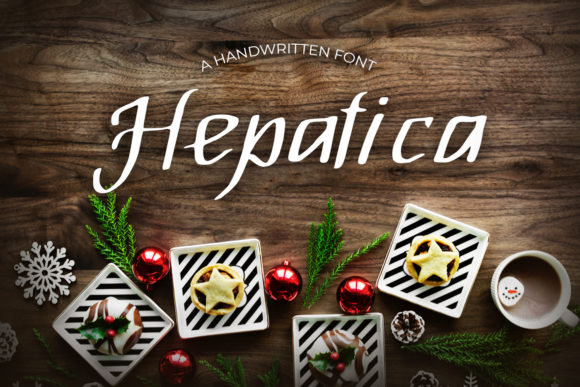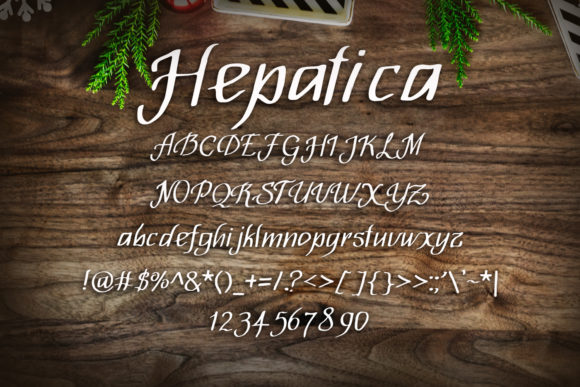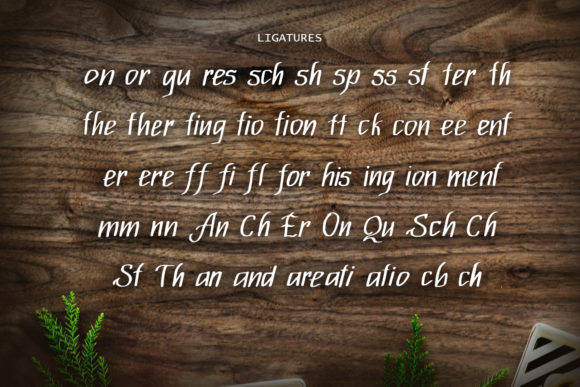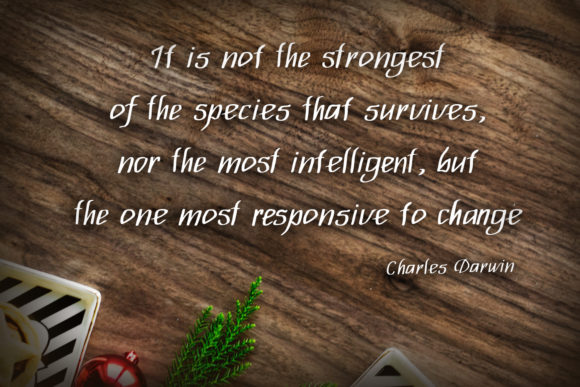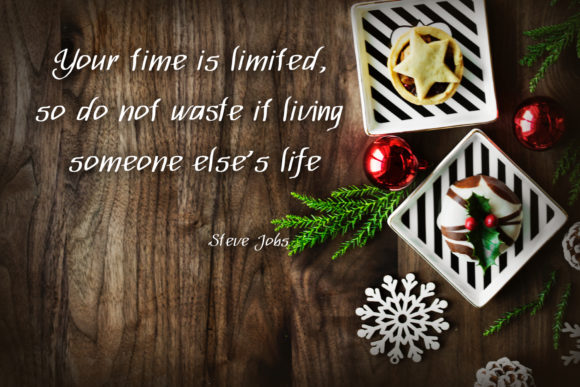
Hepatica Font
About Hepatica Font
Hepatica is an incredibly unique and interesting looking handwritten font. This original look will appeal to a wide range of crafty ideas, from letterheads and titles, to stationery.